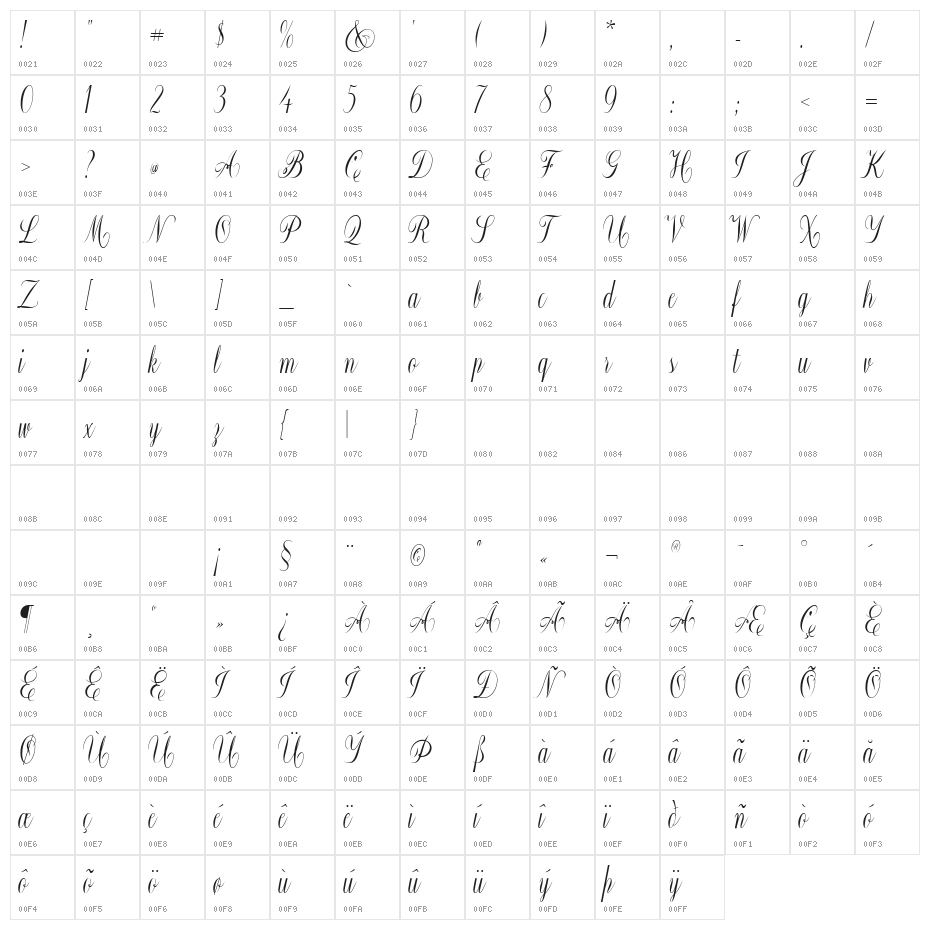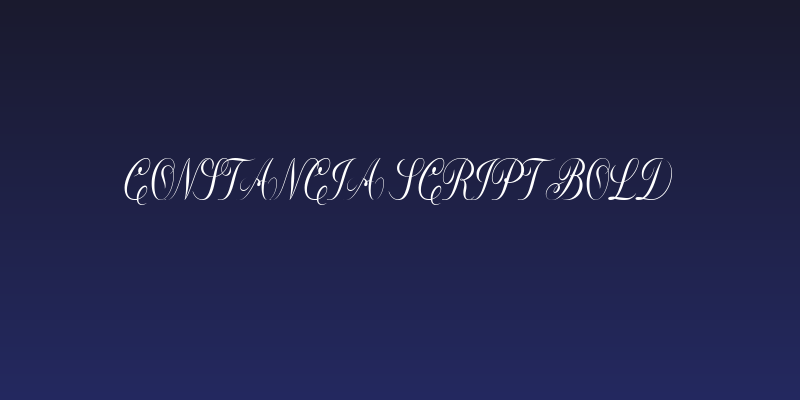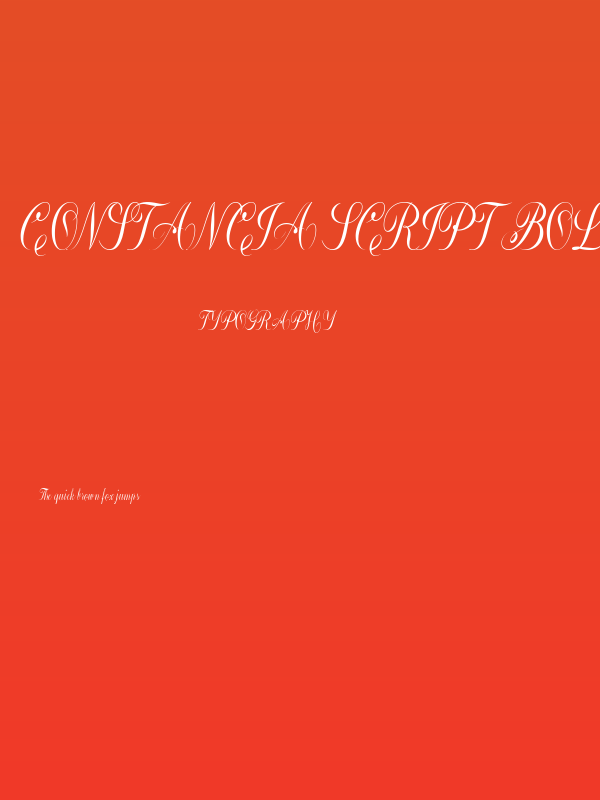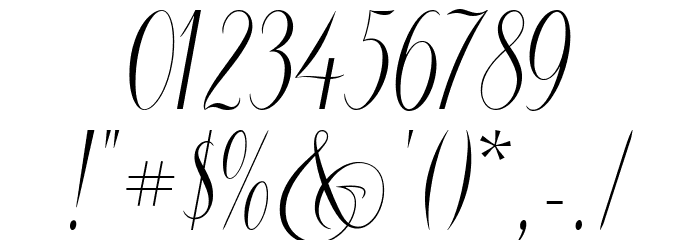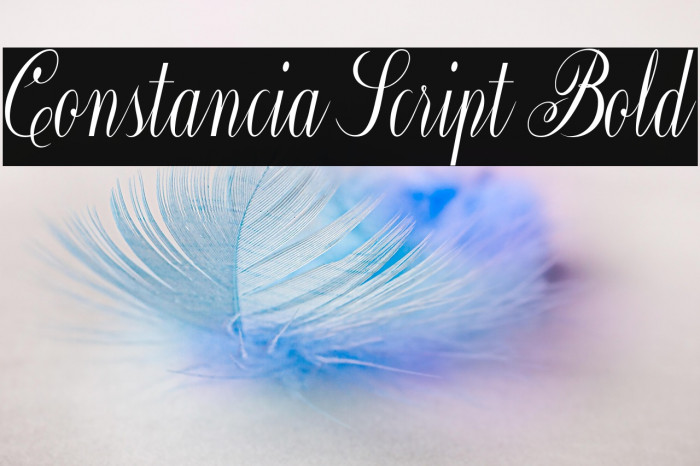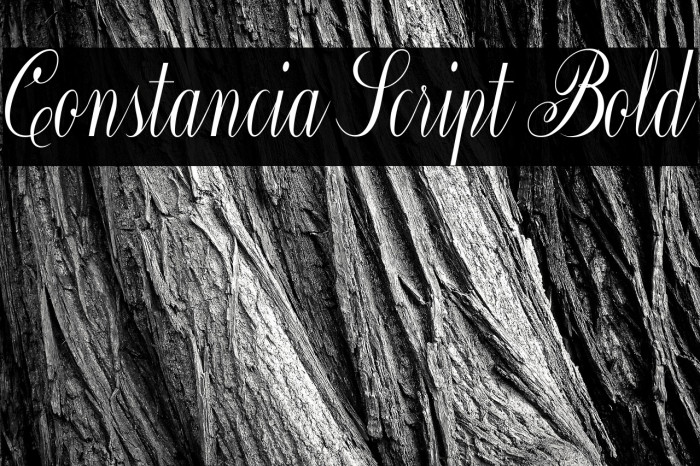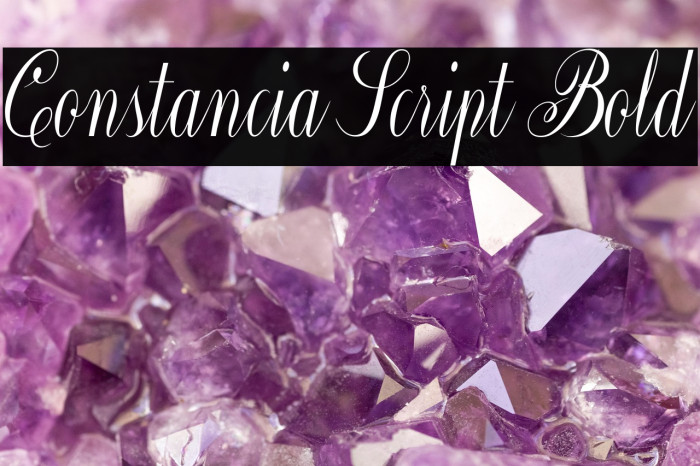
Constancia Script Bold Font
Constancia Script Bold Description
This elegant script font features a flowing, cursive style with a bold presence. The uppercase letters are characterized by their intricate loops and flourishes, giving a sense of sophistication and grace. The lowercase letters maintain a consistent flow, enhancing readability while retaining the decorative nature of the script. Numbers and special characters are designed with the same attention to detail, ensuring a cohesive look across all elements. The font's bold weight adds to its striking appearance, making it suitable for formal invitations, branding, and other projects that require a touch of elegance.
| Proposed Projects | Ideal for wedding invitations, luxury branding, elegant signage, and high-end product packaging. |